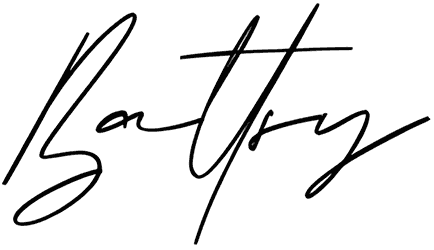
Battsy Font
Battsy is a modern signature font that has a cursive and unique form to show a luxury feel and elevate your design to the top. It comes with complete uppercase and lowercase letters, but doesn’t support numerals and punctuation.
They are best suited for branding, signature, gift cards, wedding invites, and other romantic projects. Last but not least, due to the complicated structure of the font, it is hardly legible.